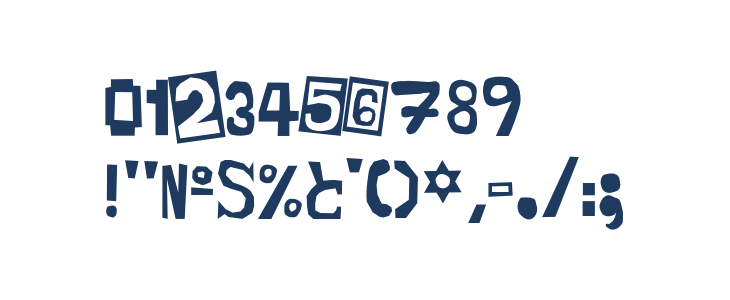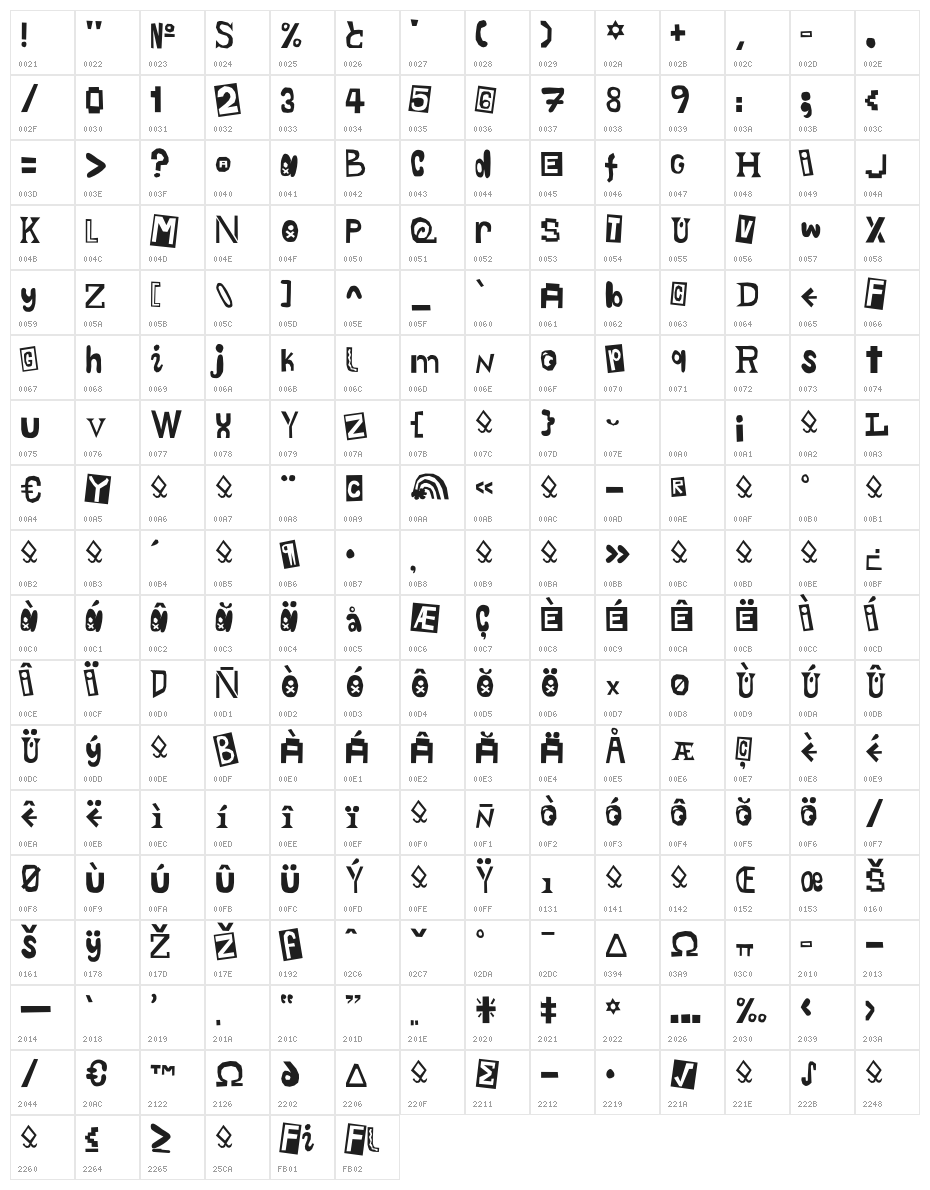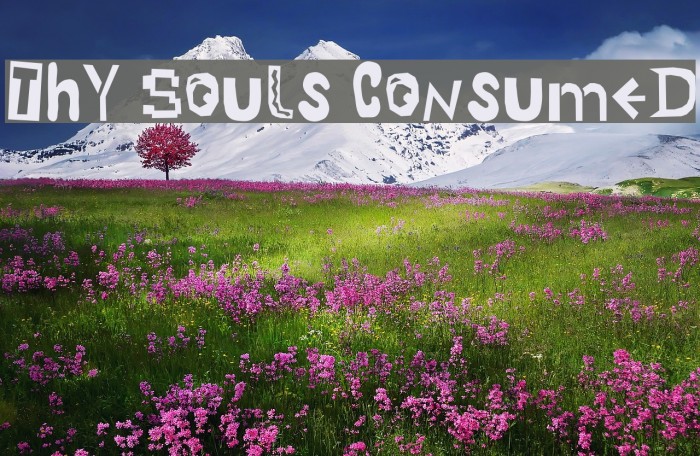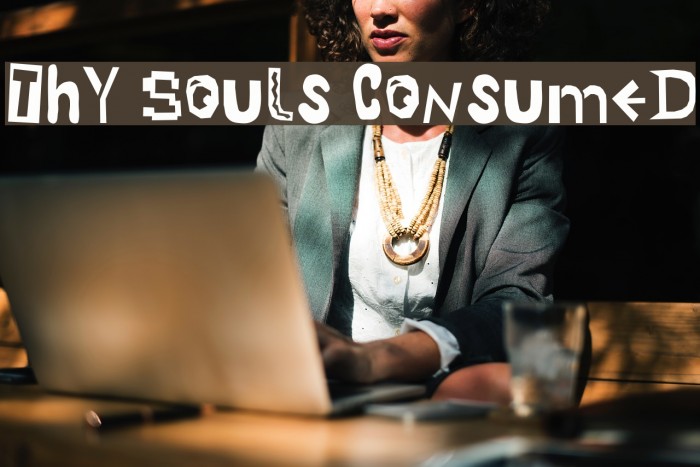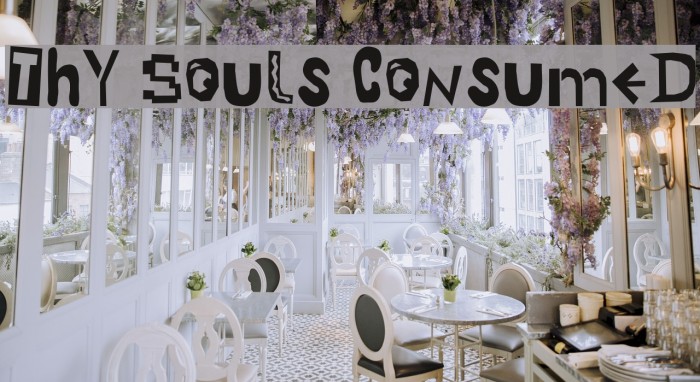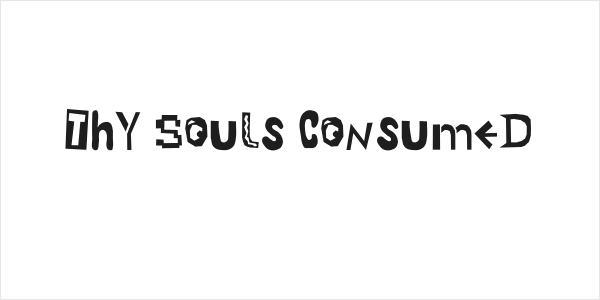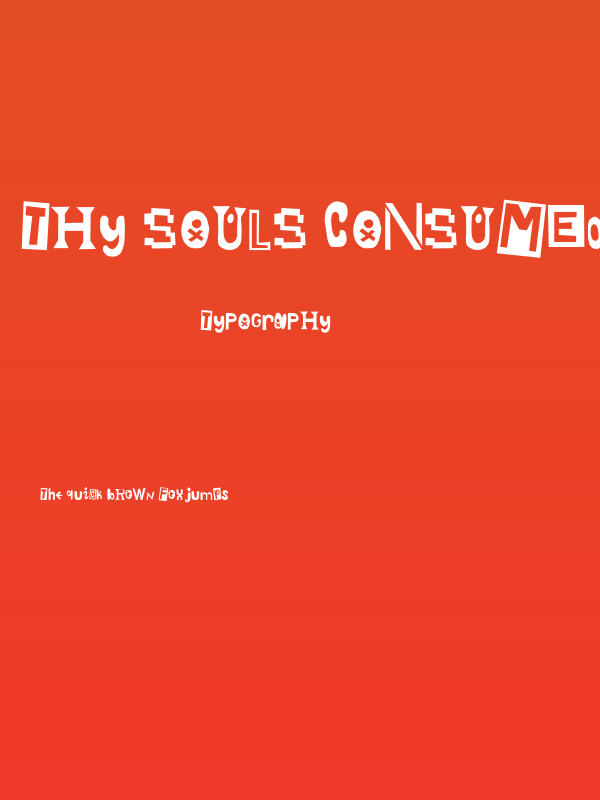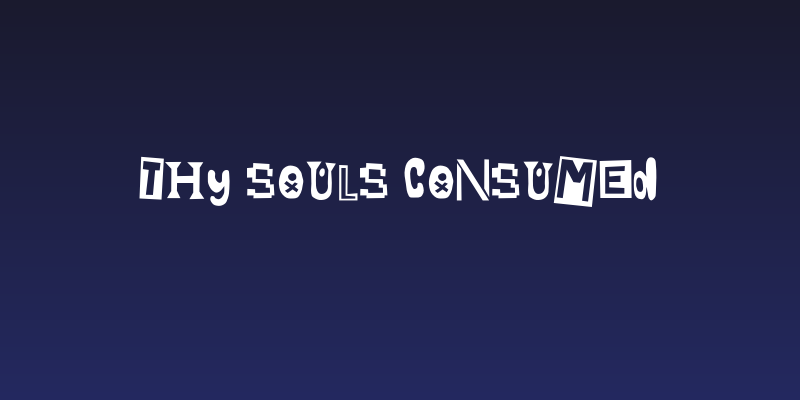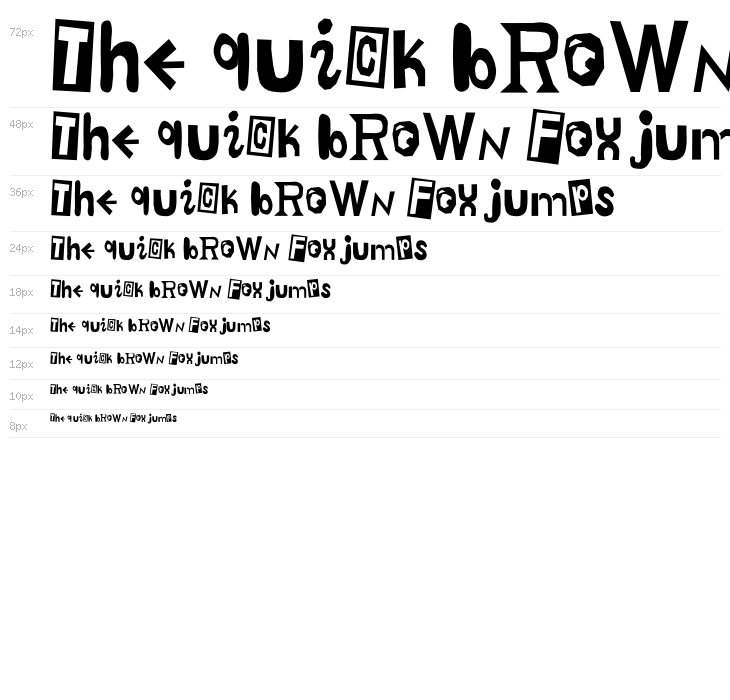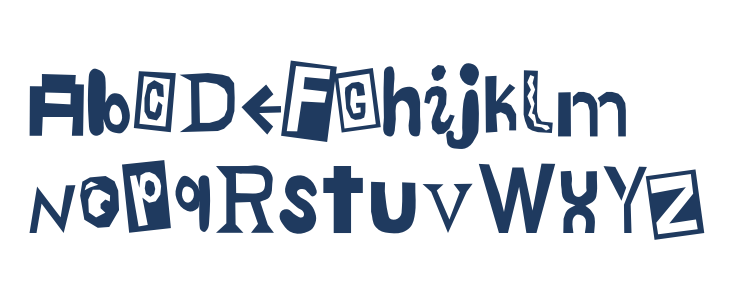
Thy Souls Consumed Font
Thy Souls Consumed Description
This font is a highly creative and eclectic display typeface, characterized by its playful and chaotic arrangement of letters. Each character is uniquely designed with varying shapes, sizes, and styles, giving it a ransom note or collage-like appearance. The uppercase and lowercase letters, as well as numbers and special characters, exhibit a mix of bold, blocky forms and more fluid, curvy shapes. This font's unpredictable nature makes it stand out, with each letter offering a distinct visual experience. The overall design is bold and eye-catching, perfect for projects that require a strong visual impact.